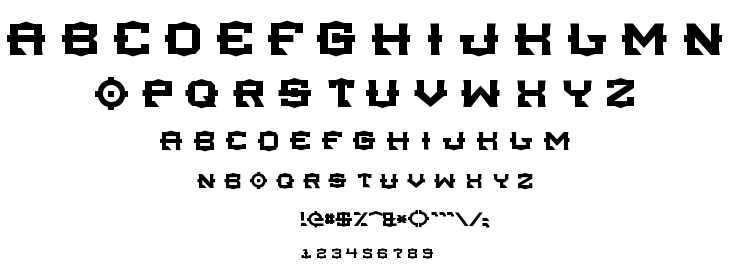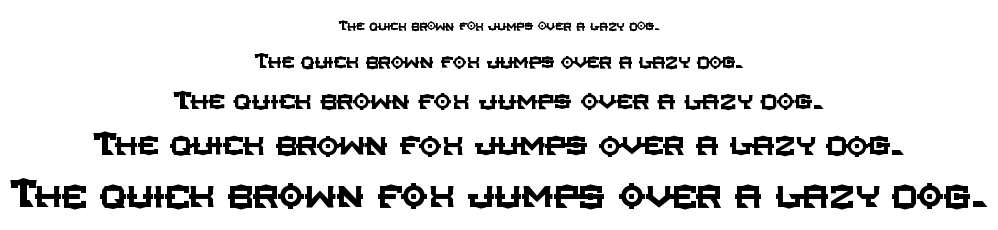
A bold decorative font based on logos used within the old Dragon Magazine. This is a maintenance release.
2.10 – June 17, 2011 – Adds Euro and Accent Characters